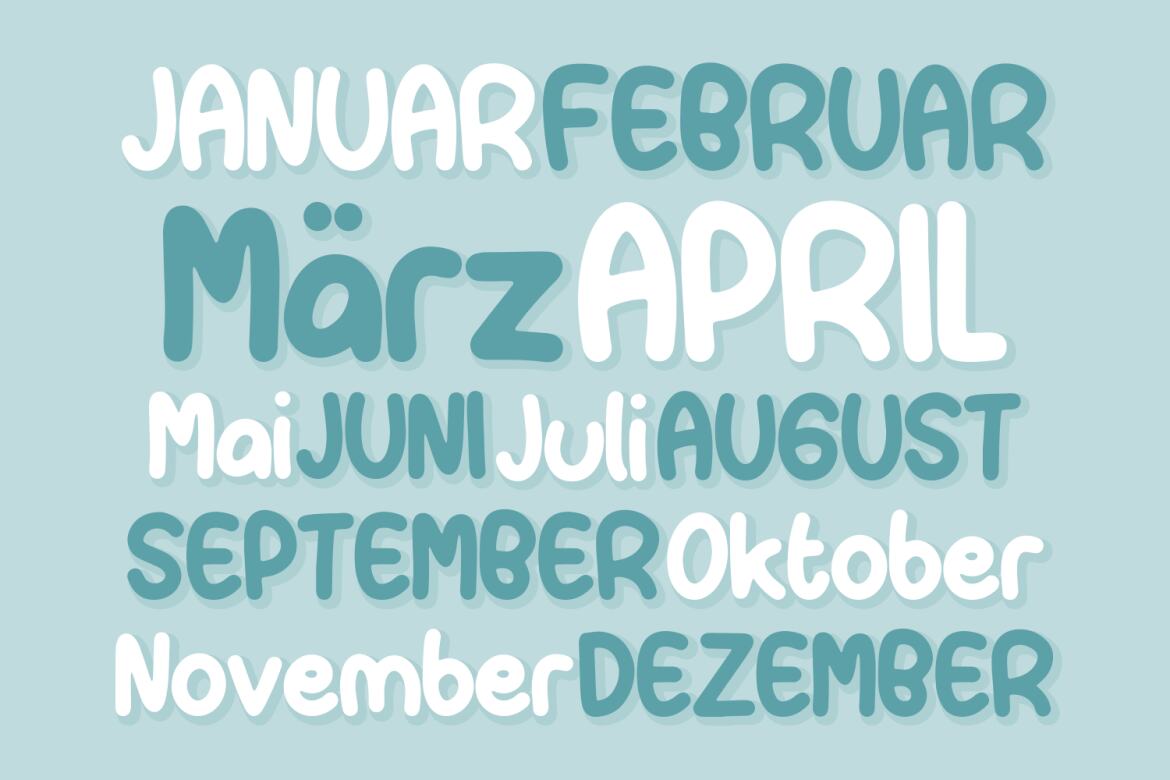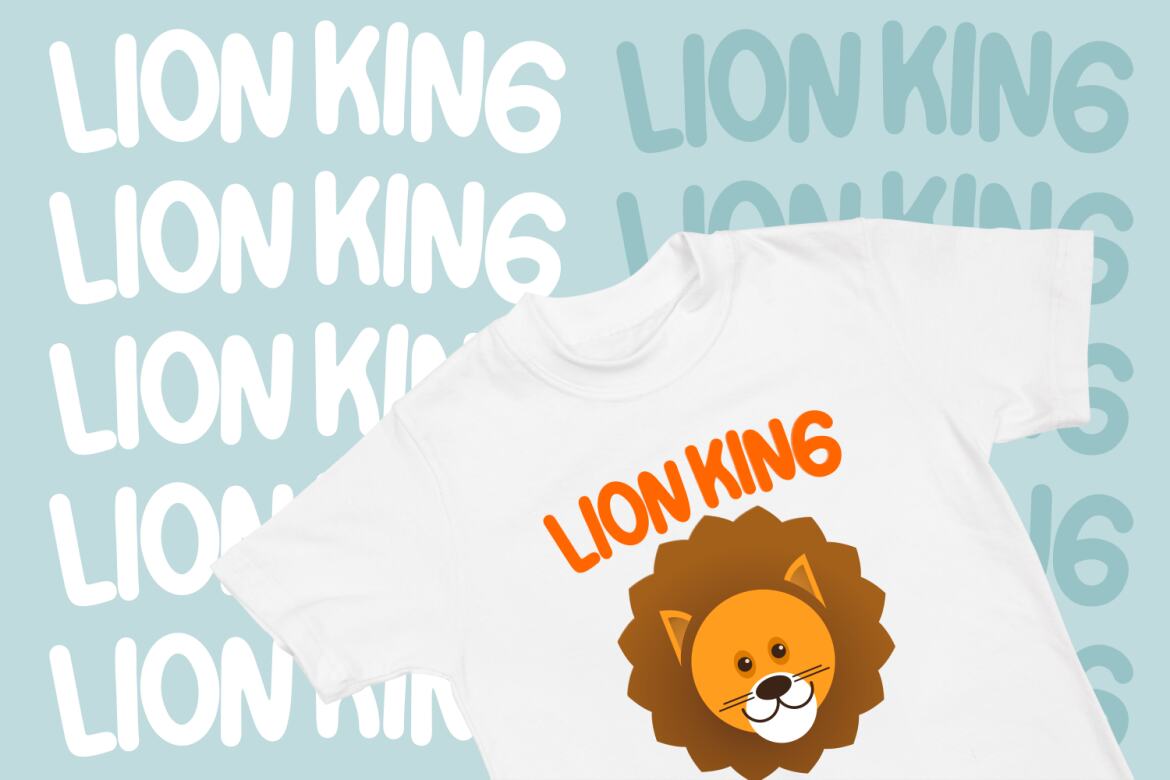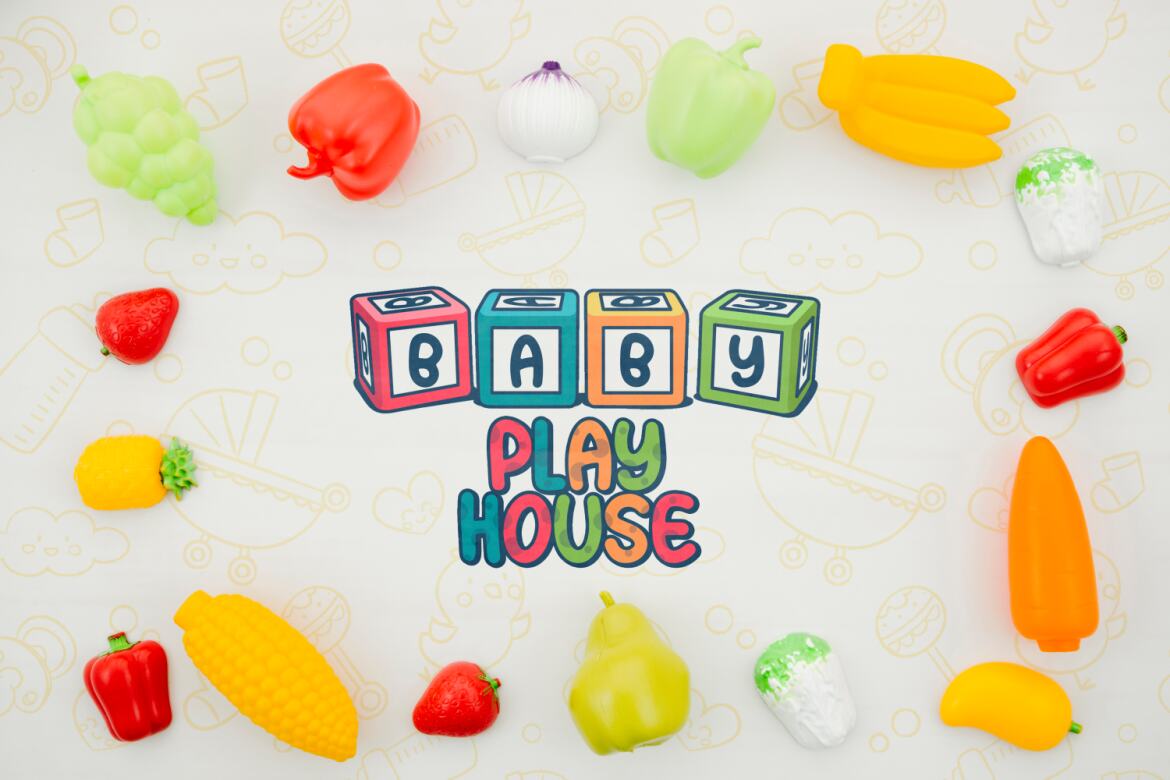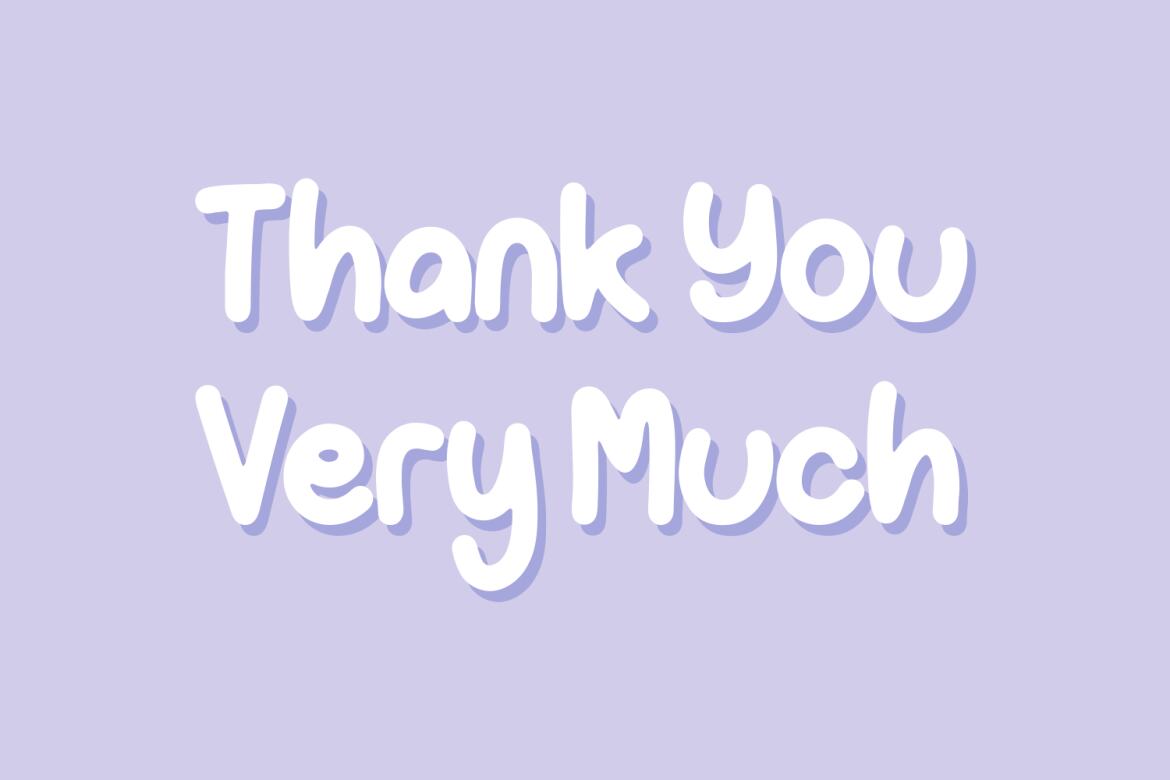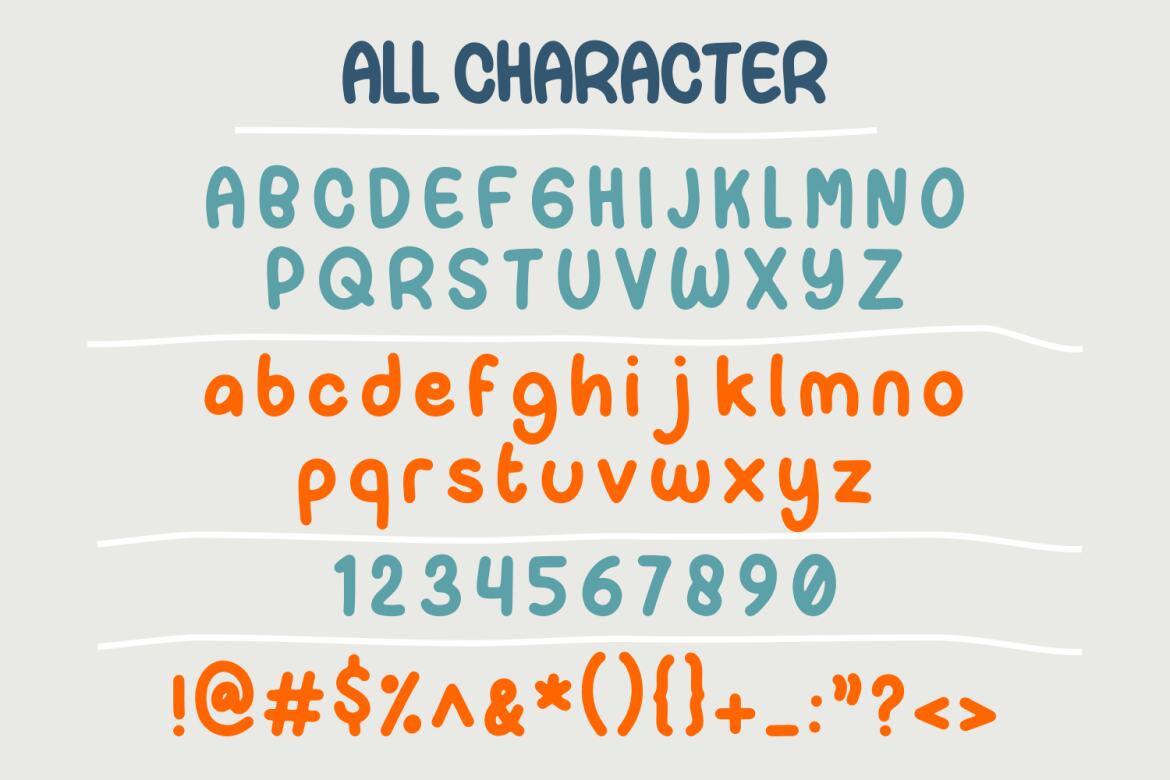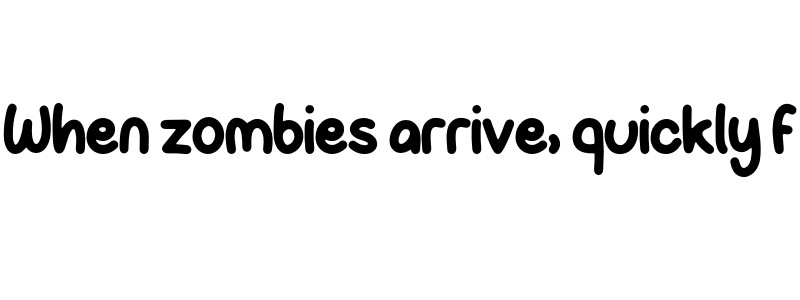
Paper Candy - Free Font
Proudly Present, Paper Candy Font. Paper Candy is a Bold Monoline font style. Paper candy is perfect for product packaging, branding project, megazine, social media, wedding, or just used to express words above the background.